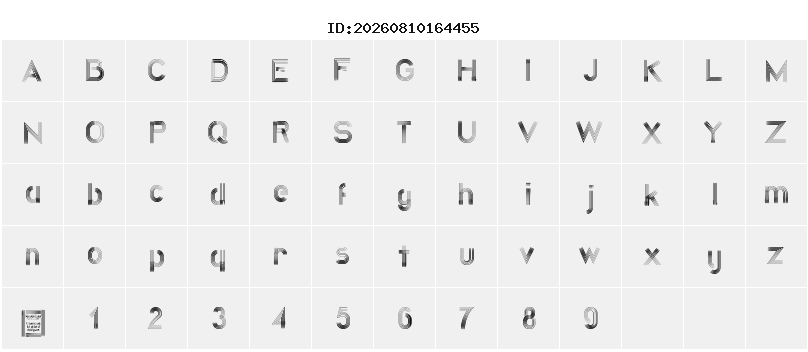
• Font Name: Quatroline
• Designer: Mehmet Abacı
• Manufacturer: StudioTypo
About Quatroline.ttf
Quatroline.ttf is a modern, elegant sans-serif font designed for ultimate readability and visual harmony. Perfect for branding, headlines, web design, and print materials.